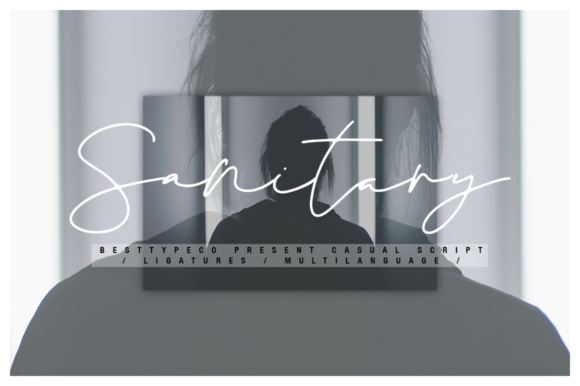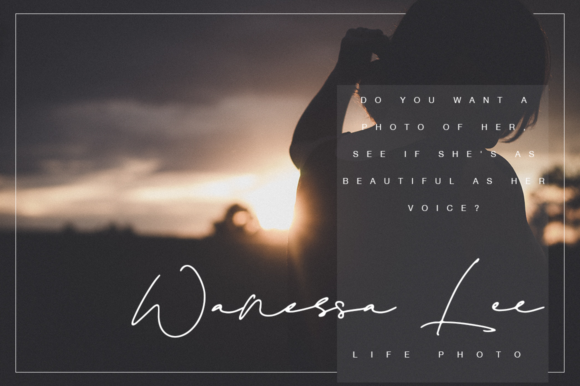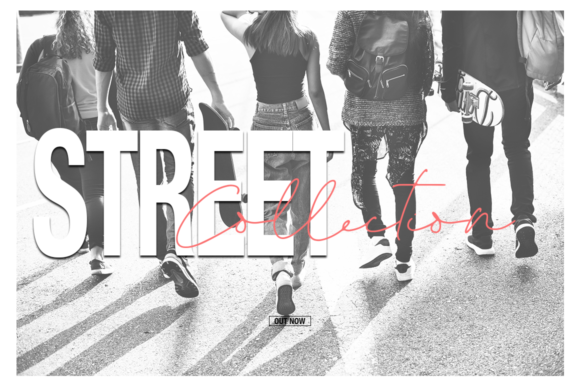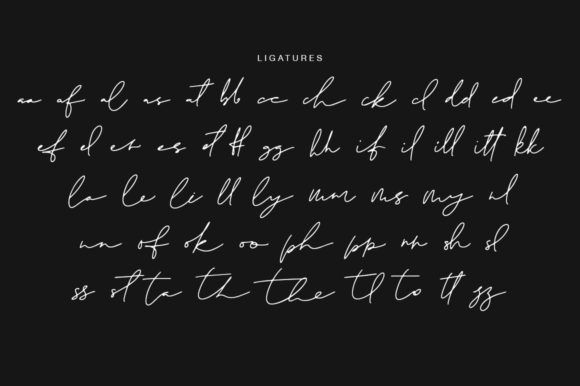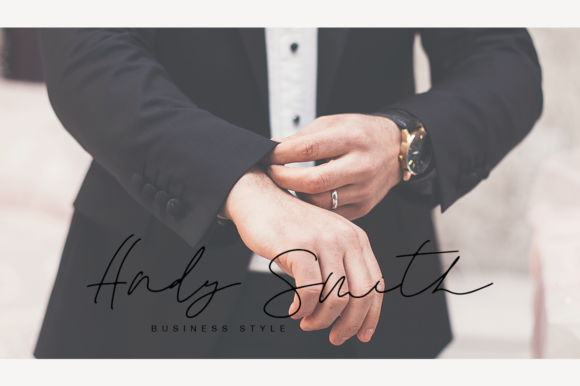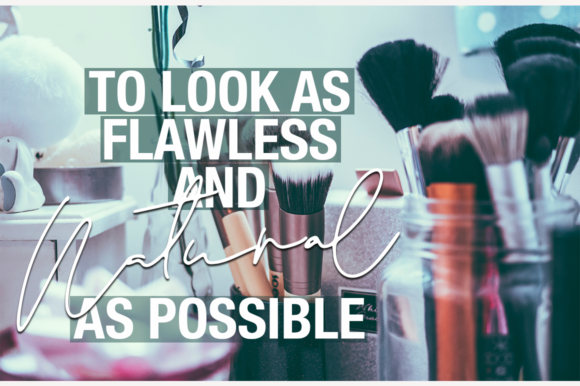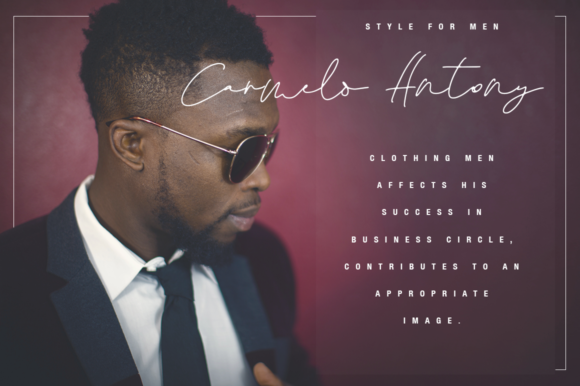
Sanitary Font
About Sanitary Font
The Sanitary is a fresh, handmade calligraphy font. It has thin letters which will give your design an elegant touch.
Very suitable for greeting cards, branding materials, business cards, quotes, posters, and more!